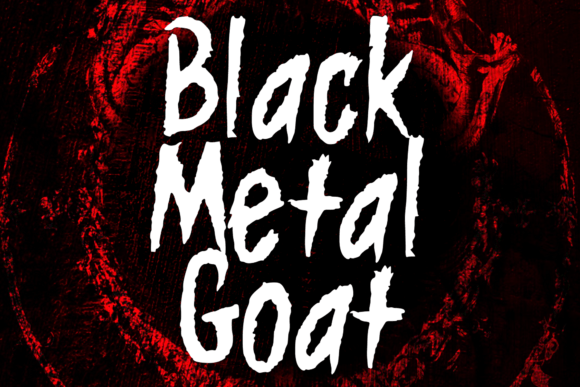
Unleash the Horror with Black Metal Goat Font: A Skinny Horror Grunge Font
Are you looking for a font that can add a touch of horror and grunge to your designs? Look no further than the Black Metal Goat Font. Inspired by vintage horror movies, horror comics, and metal music, this font is perfect for creating spooky and eye-catching designs for Halloween, horror-themed merchandise, and more.
What is Black Metal Goat Font?
Black Metal Goat is a skinny horror grunge font that is designed to evoke the spirit of horror and metal music. With its bold and edgy design, this font is perfect for creating eye-catching designs that will leave a lasting impression on your audience. Whether you’re creating merchandise like t-shirts and clothing, designing scary book covers, or creating Halloween party materials, Black Metal Goat Font is the perfect choice.
Inspiration from Vintage Horror Movies and Metal Music
The Black Metal Goat Font is inspired by the classic horror movies and metal music of the past. The font’s design is reminiscent of the bold and edgy typography found in vintage horror movies and horror comics. The font’s grunge texture and distressed look also give it a metal music vibe, making it perfect for fans of heavy metal music.
Uses for Black Metal Goat Font
The Black Metal Goat Font is a versatile font that can be used for a wide range of design projects. Here are some ideas for using this font:
- Merchandise: Use Black Metal Goat Font to create eye-catching designs for t-shirts, clothing, and other merchandise.
- Scary Book Designs: Add a touch of horror to your book covers and interior designs with this font.
- Halloween Party Needs: Create spooky and eye-catching designs for Halloween party invitations, decorations, and more.
- Greeting Cards: Use Black Metal Goat Font to create spooky and fun greeting cards for Halloween and other occasions.
- Stickers and Posters: Create eye-catching stickers and posters with this font.
- Banners: Use Black Metal Goat Font to create bold and eye-catching banners for Halloween parties and events.
Why Choose Black Metal Goat Font?
There are many fonts available that can add a touch of horror and grunge to your designs. So why choose Black Metal Goat Font? Here are a few reasons:
- Unique Design: Black Metal Goat Font has a unique and eye-catching design that will set your designs apart from the rest.
- Versatility: This font can be used for a wide range of design projects, from merchandise to book covers to Halloween party materials.
Tips for Using Black Metal Goat Font
Here are a few tips for using Black Metal Goat Font:
- Use it with Images: Black Metal Goat Font looks great when used with images, especially those with a horror or grunge theme.
- Experiment with Colors: Try using different colors with Black Metal Goat Font to create unique and eye-catching designs.
- Use it for Headlines: This font is perfect for headlines and titles, so use it to add a touch of horror and grunge to your designs.
- Pair it with Other Fonts: Try pairing Black Metal Goat Font with other fonts to create interesting and unique designs.
Q: What is Black Metal Goat Font?
A: Black Metal Goat Font is a skinny horror grunge font inspired by vintage horror movies, horror comics, and metal music.
Q: What can I use Black Metal Goat Font for?
A: You can use Black Metal Goat Font for a wide range of design projects, including merchandise, scary book designs, Halloween party needs, greeting cards, stickers, posters, banners, and more.